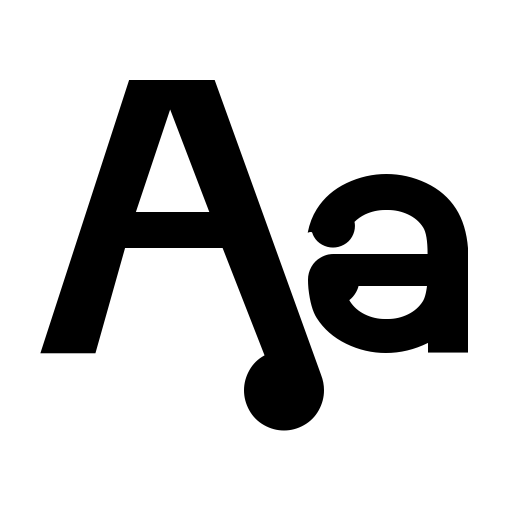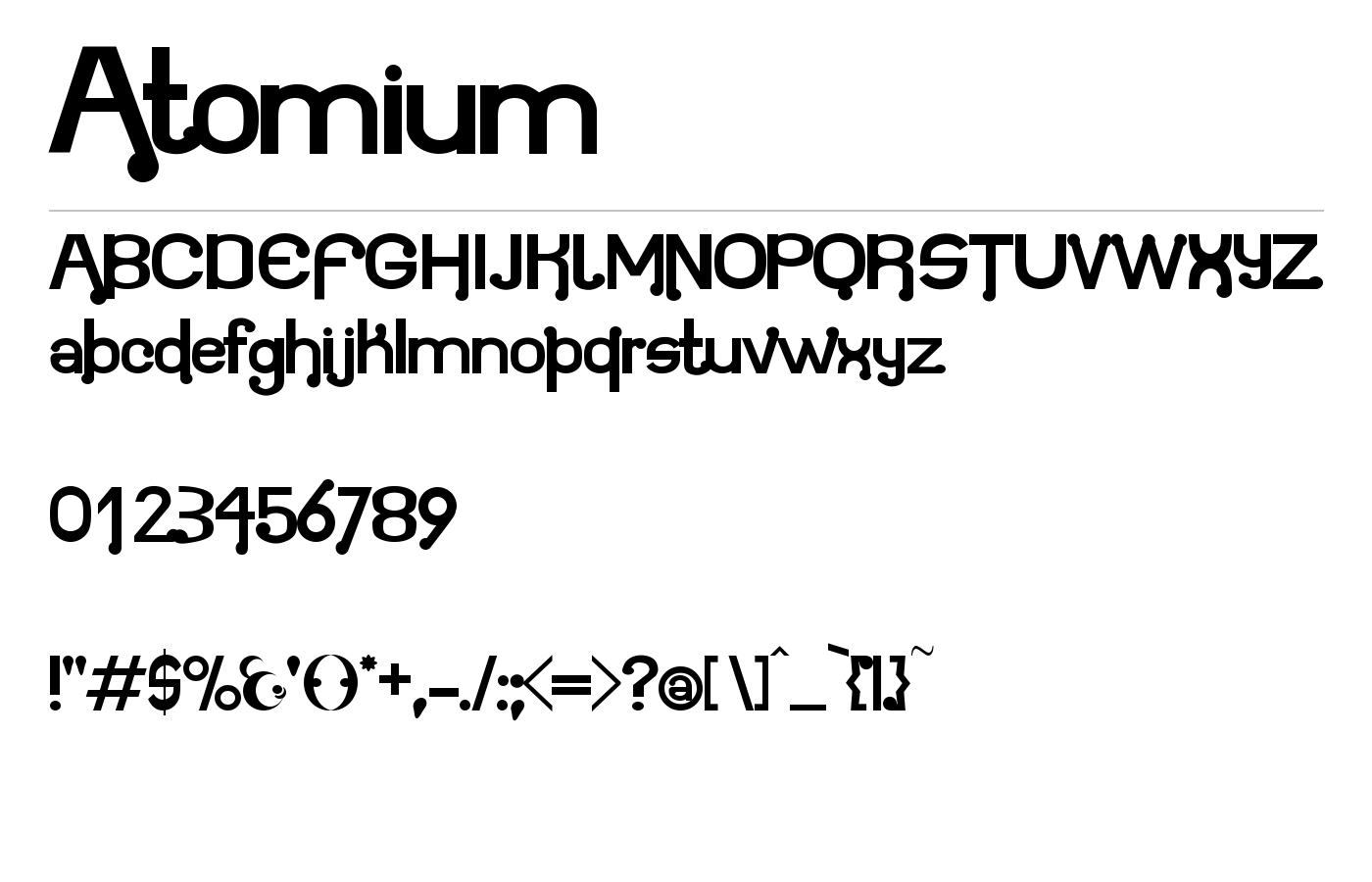
Atomium is a bold, modern sans serif font characterized by its unique, rounded terminals connected by small circular nodes, giving it a playful, futuristic feel. Its sturdy weight and consistent width make it eye-catching and suitable for creative branding, logos, and headlines where a distinct, tech-inspired personality is desired. This font works well in projects seeking an innovative and approachable look that balances geometric structure with whimsical details.
Atomium Font
About Atomium Font
| Font family | Atomium Font |
| Designer | Matias Romero |